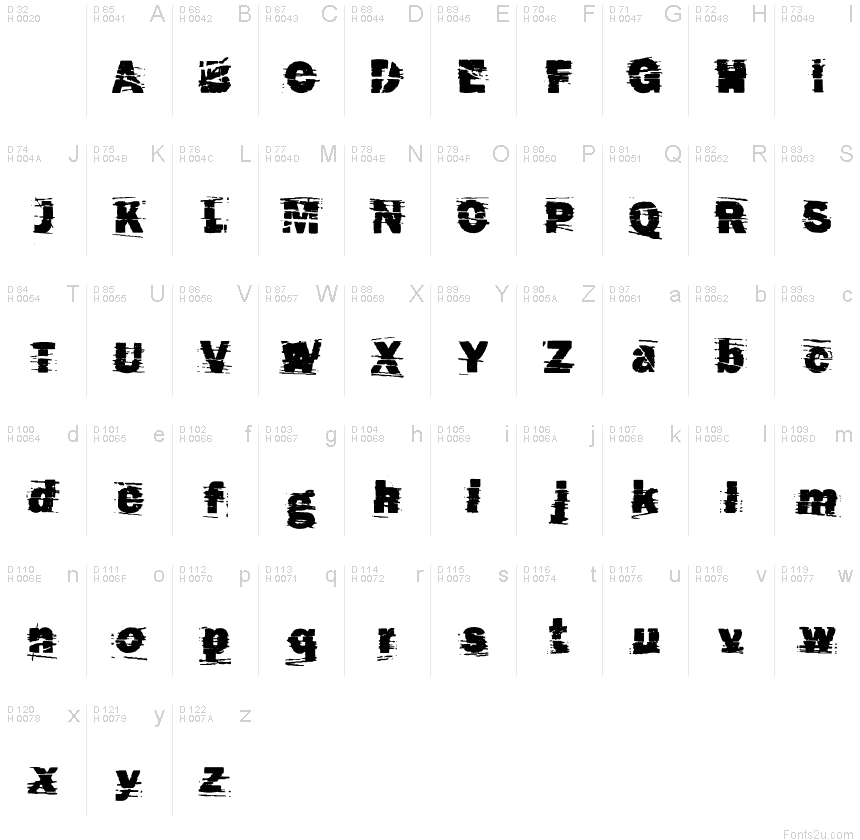
cut n paste
Cut n Paste font by Data Becker is a free distorted display typeface that looks like it’s been ripped from a battered photocopied zine. Chunky black letterforms are scraped, streaked, and smeared, as if dragged through wet ink and slapped down slightly off-kilter. It has that loud, DIY collage feel—edges broken, fragments misaligned—that instantly throws you into punk flyers, underground clubs, and grainy copy-shop walls.
Using Cut n Paste, you can push attitude on gig posters, album covers, protest graphics, streetwear branding, horror titles, and edgy YouTube thumbnails. The rough erosion adds texture and urgency, so even a single word feels shouted rather than spoken. This free font works best big and bold; pair it with a clean, narrow sans serif for supporting text to keep layouts readable while the headline stays wild.